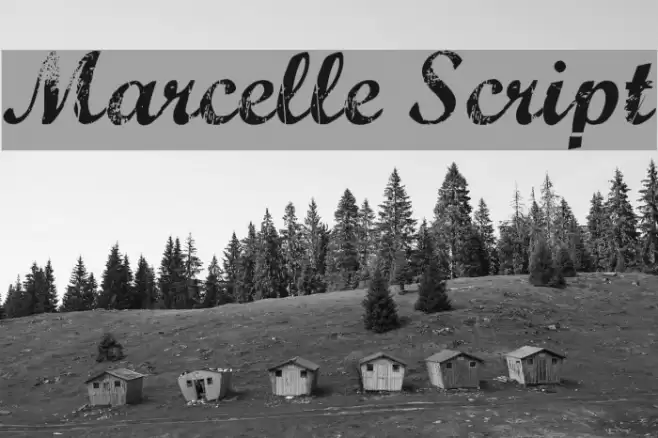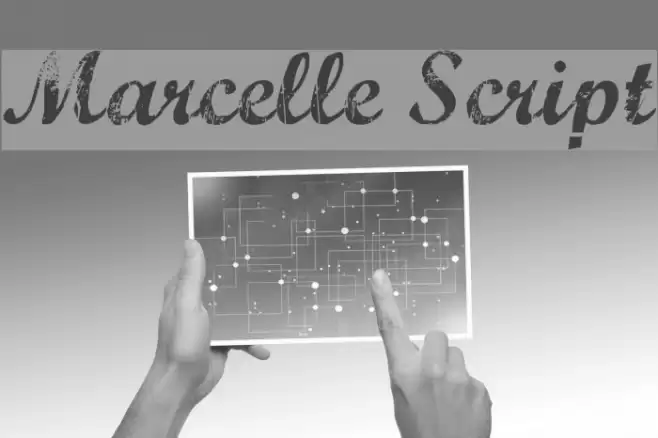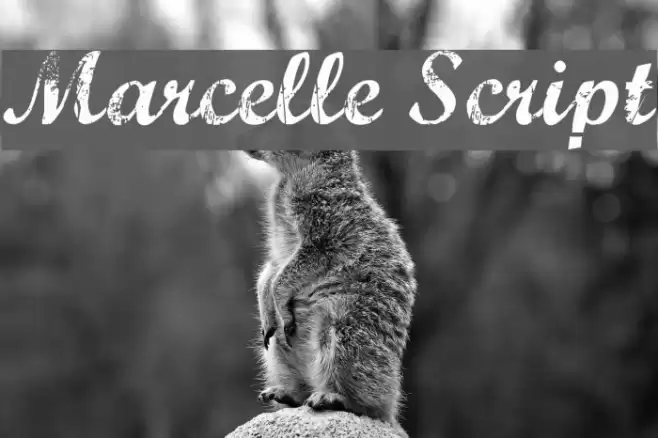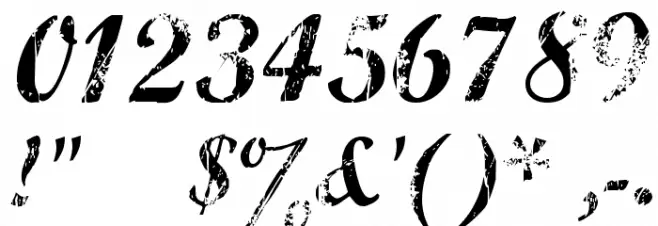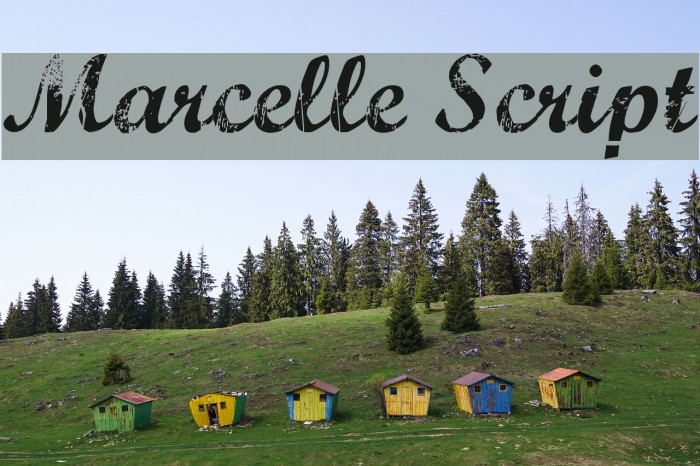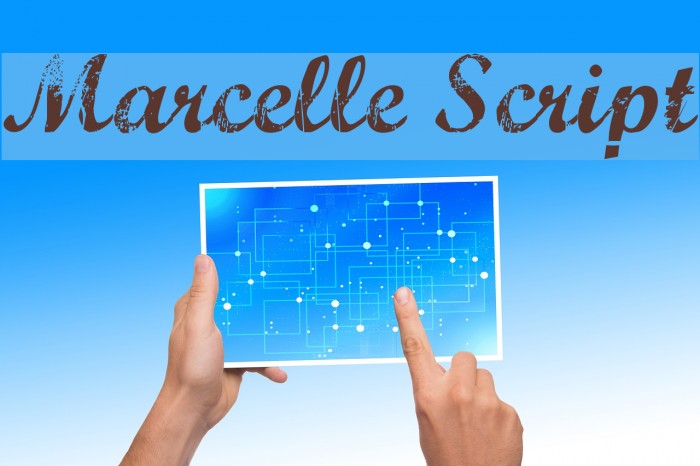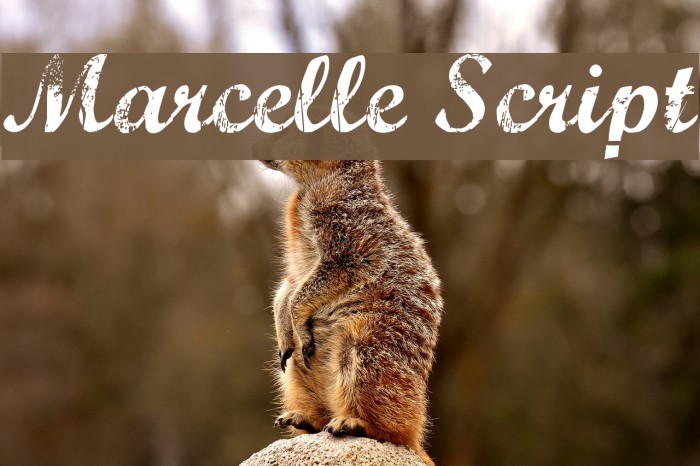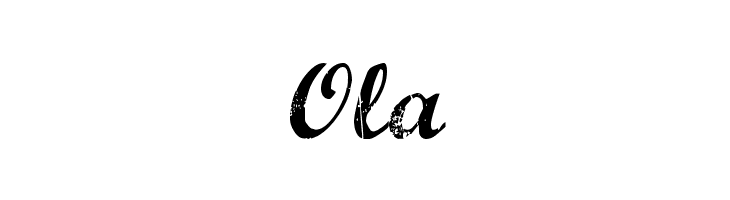
Marcelle Script Font
Marcelle Script Description
This script font features a distressed, textured appearance that gives it a vintage and worn look. The letters are elegantly connected, showcasing a flowing, cursive style that is both artistic and expressive. The uppercase letters are bold and prominent, while the lowercase letters maintain a consistent flow, enhancing the script's overall fluidity. Numbers and special characters follow the same distressed pattern, ensuring uniformity across all glyphs. The font's unique texture adds character and depth, making it ideal for projects that require a touch of nostalgia or a handcrafted feel.
A distressed, vintage script font with a textured, cursive style from Old fashioned fonts.
- Proposed Projects: Ideal for vintage-themed designs, logos, invitations, and posters that require a handcrafted or nostalgic touch.
- Overall Style: Vintage
- Use Case: Logos, Invitations, Posters